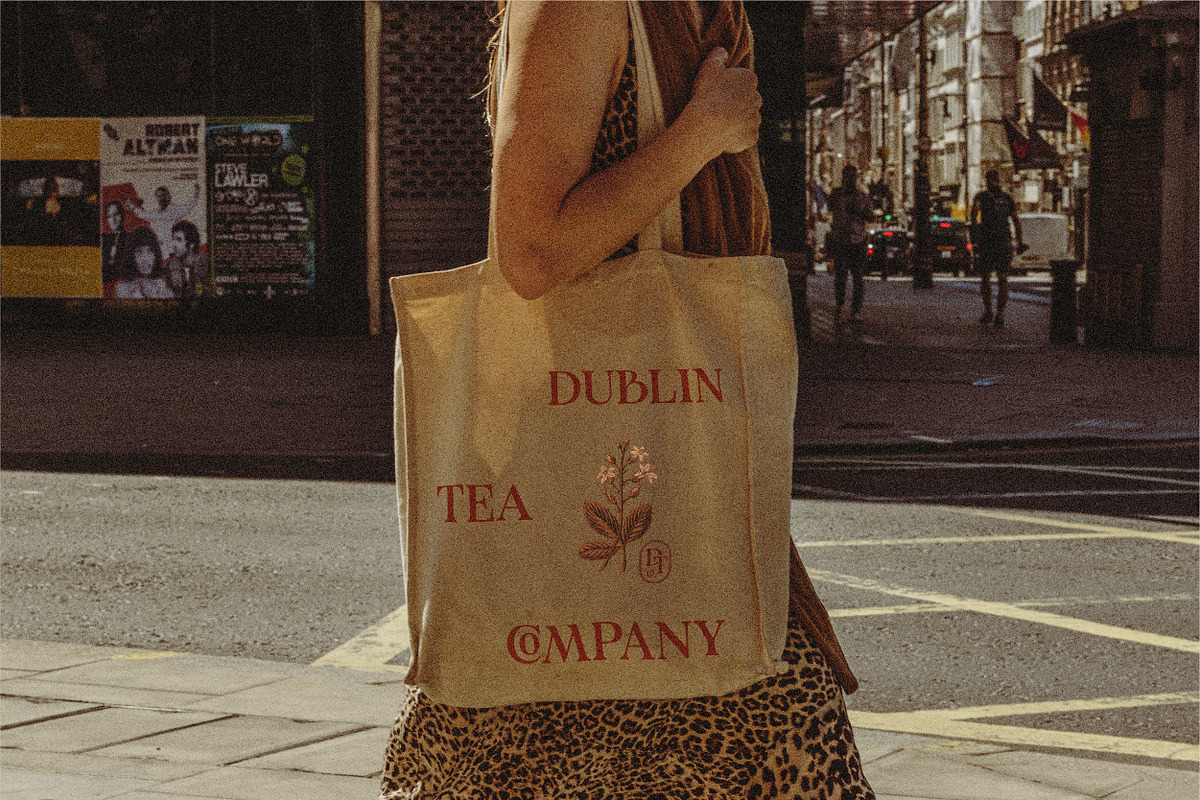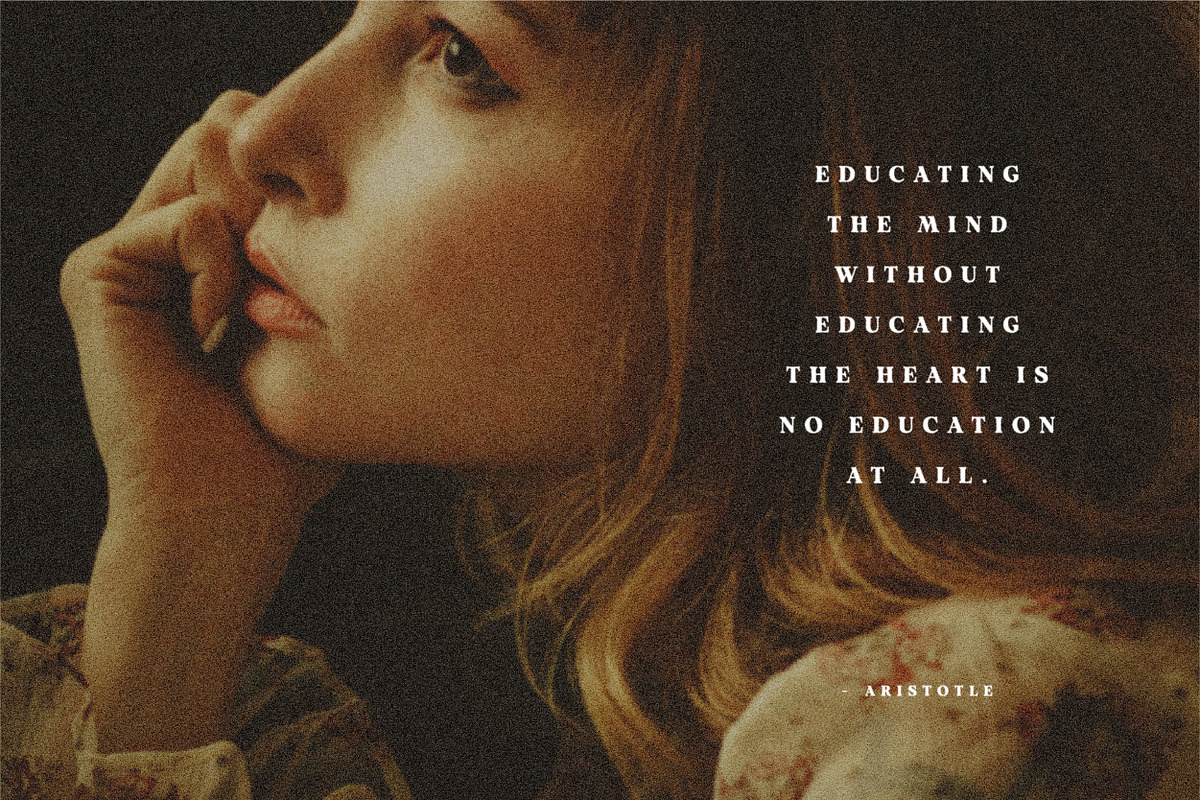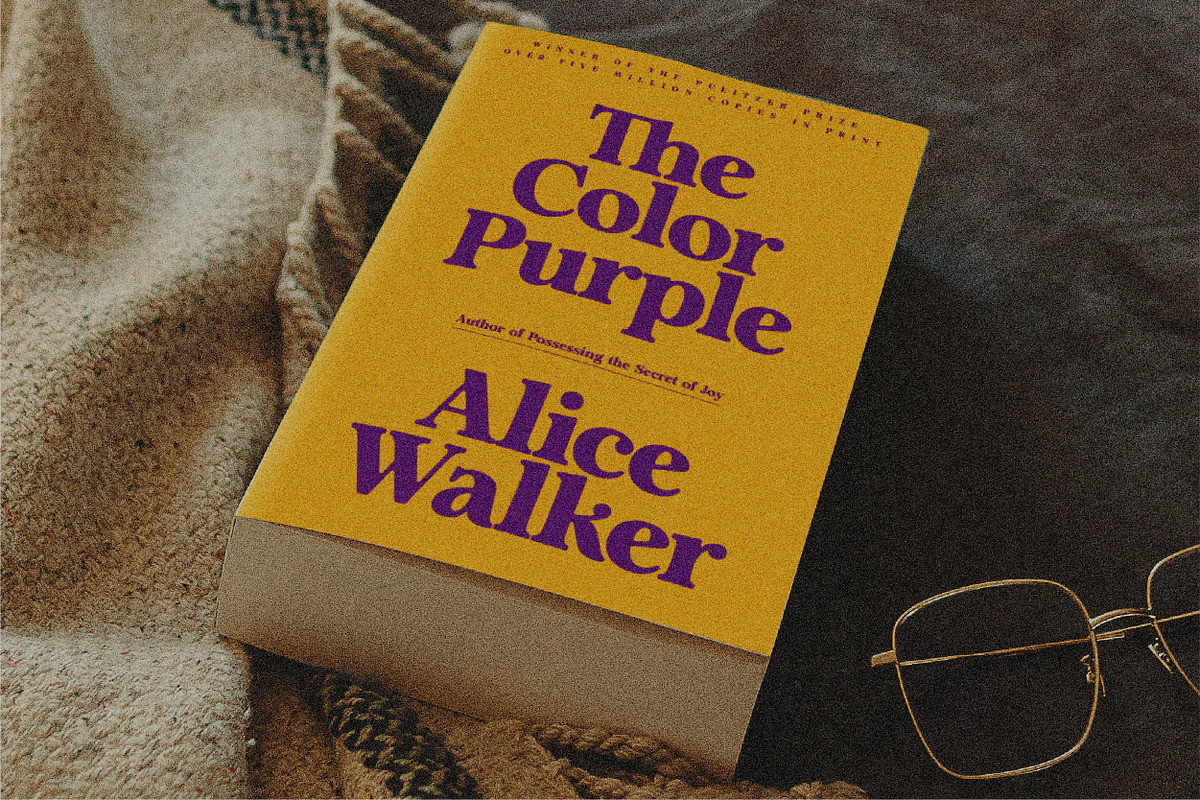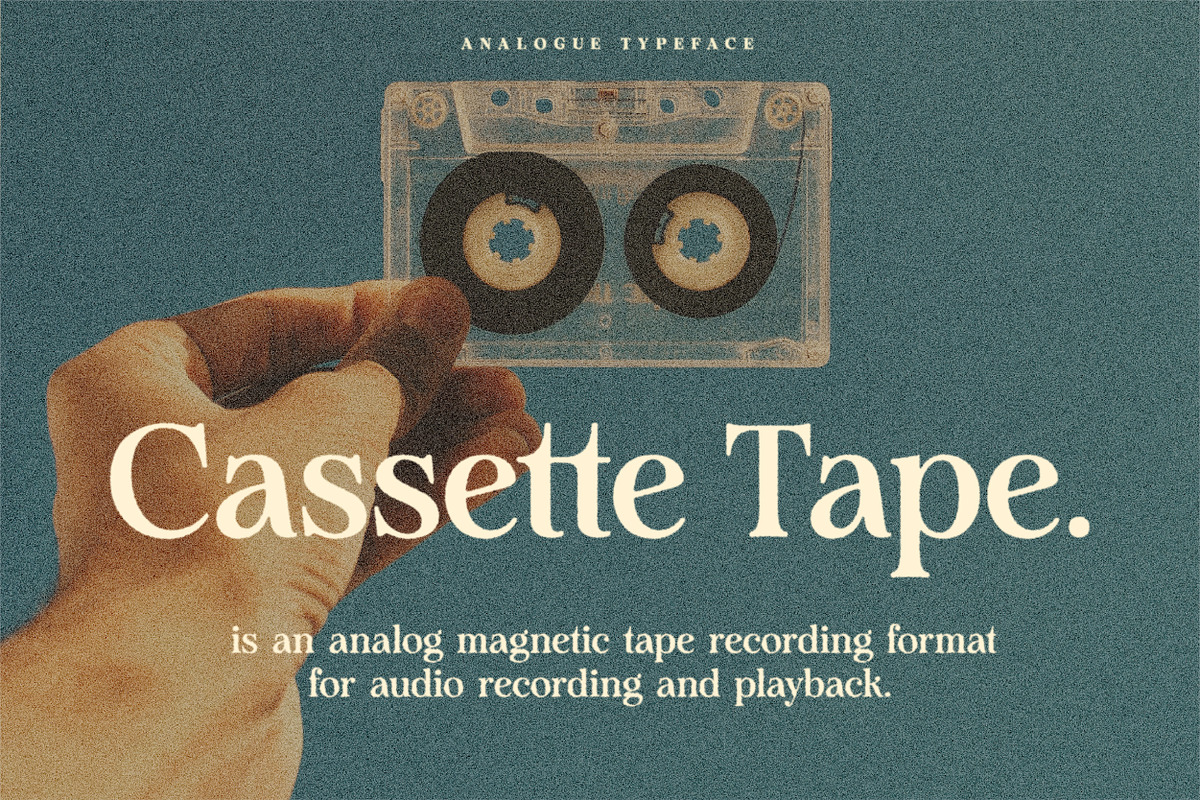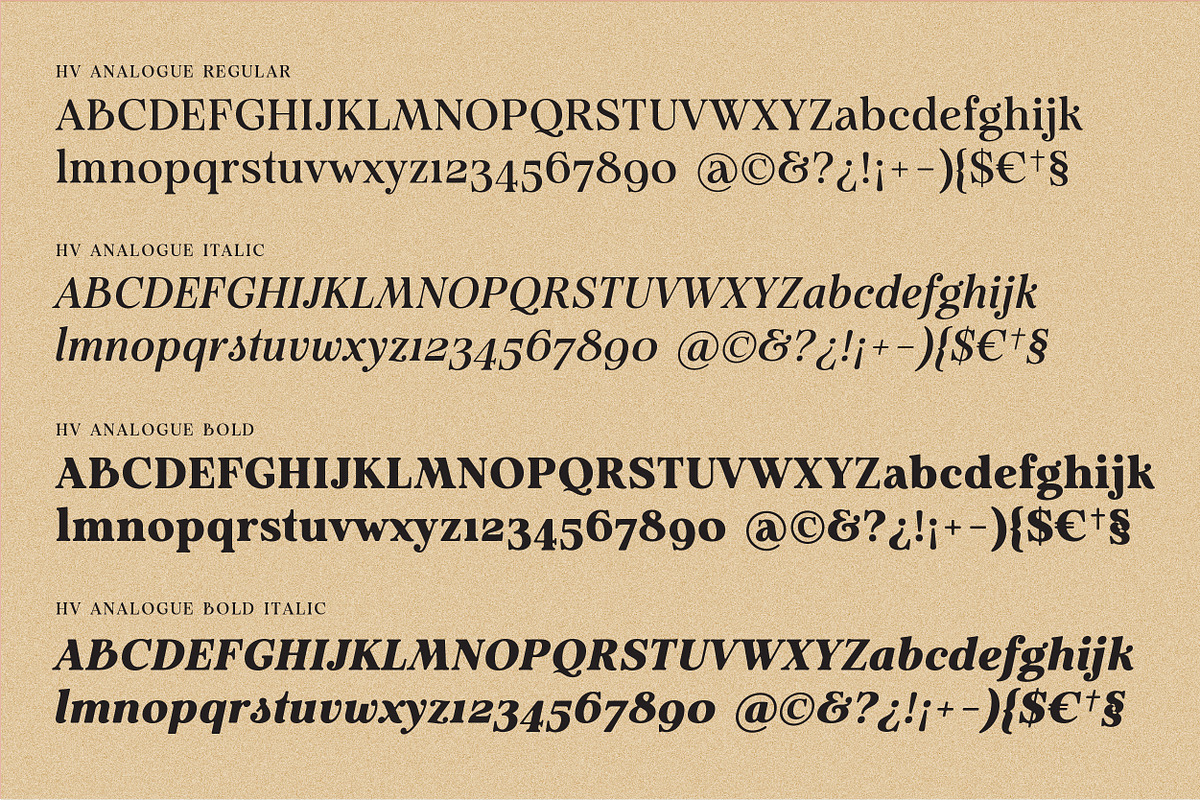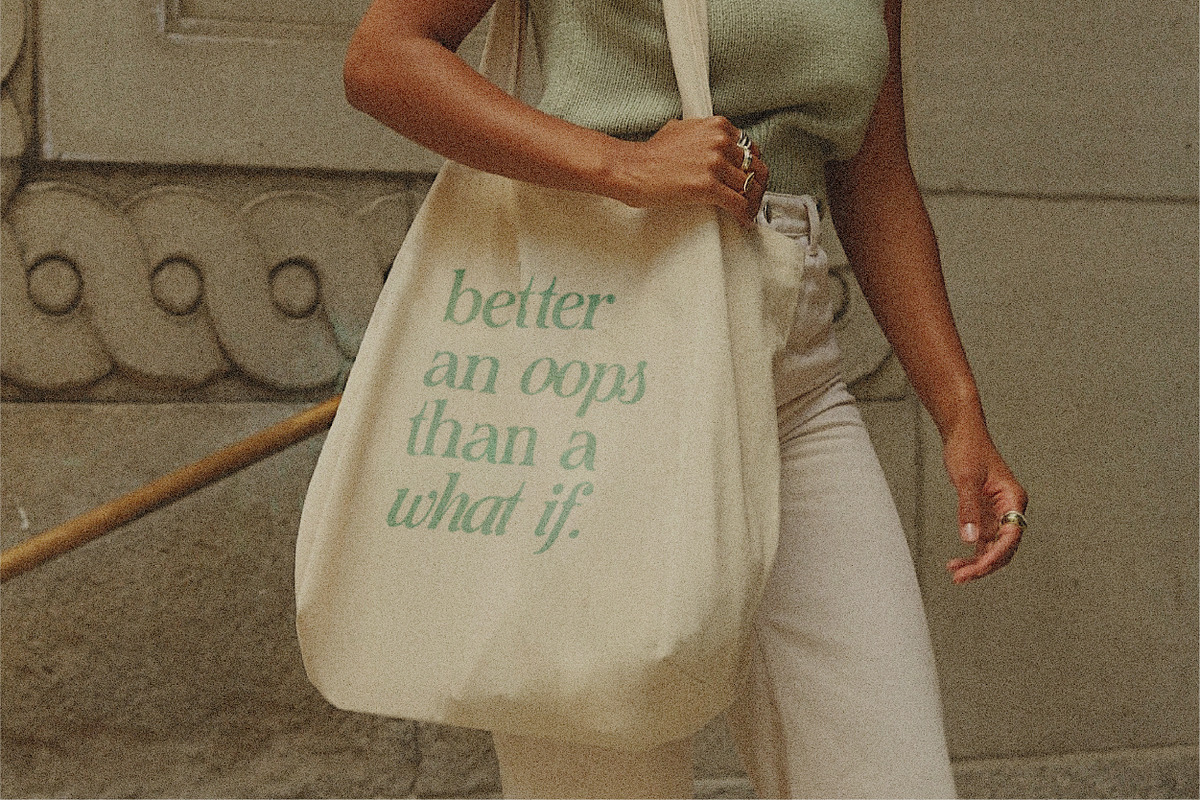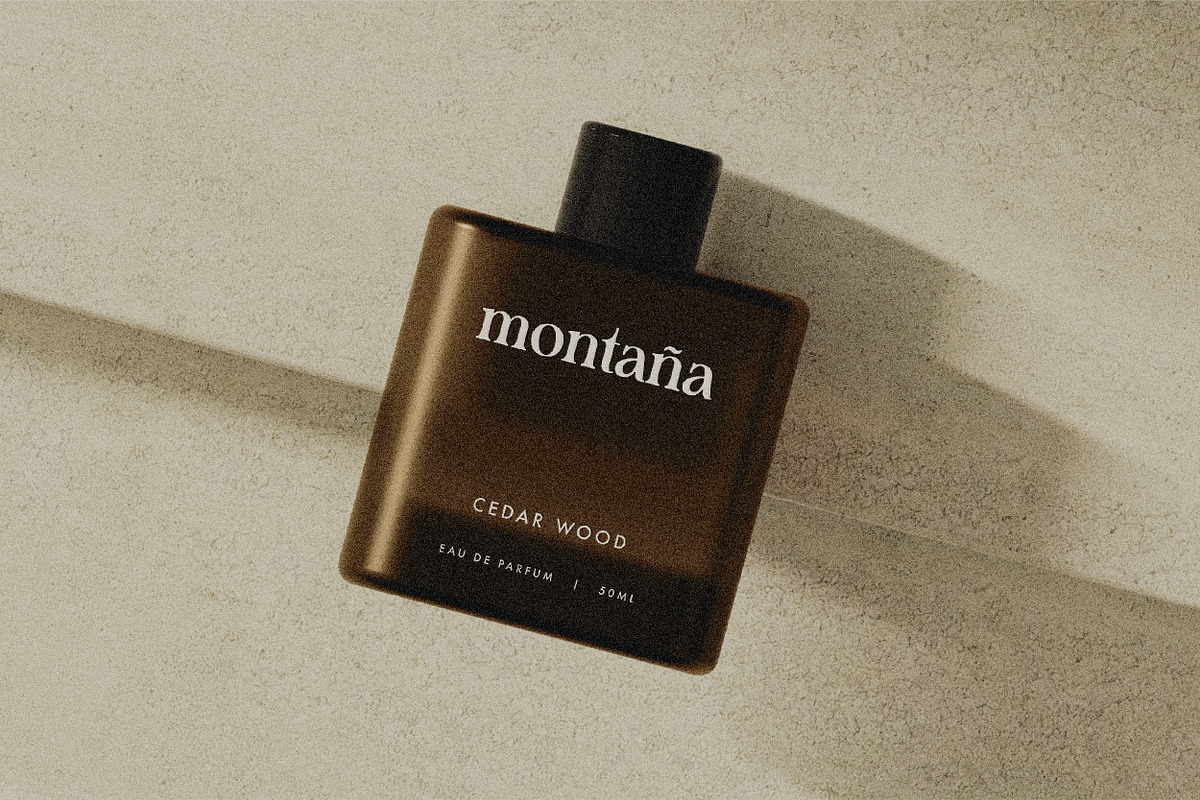
Analogue - Humanist Retro Serif
Analogue is a retro serif with a humanist touch. With its good readability, Analogue is perfect for both displays as well as body text.
Inspired by all the retro aesthetics making a comeback, Analogue is perfectly suitable for creating nostalgic yet still elegant designs such as logos, packaging, editorial, and more.
HV ANALOGUE FEATURE:
- Europeans languages
- Vietnamese
Great set of display fonts with a vintage vibe!
Love this font very much and it's perfectly retro in every way! Its also got that old Bible cover font feel to it too. :-)